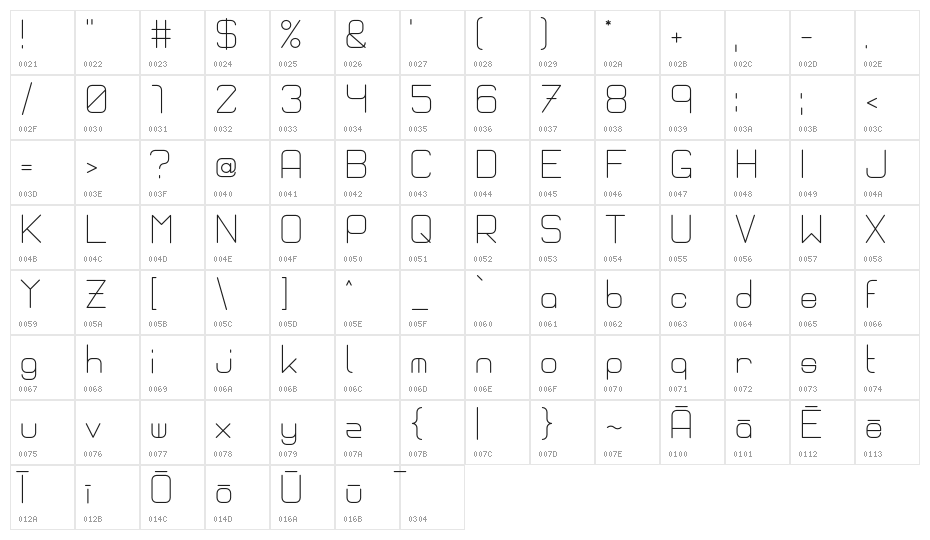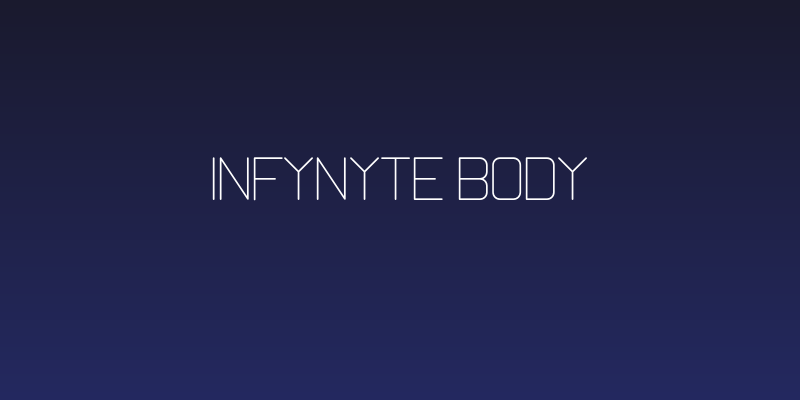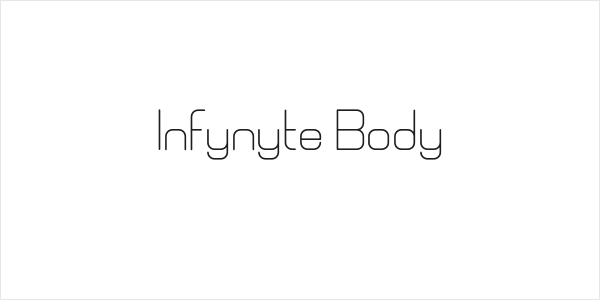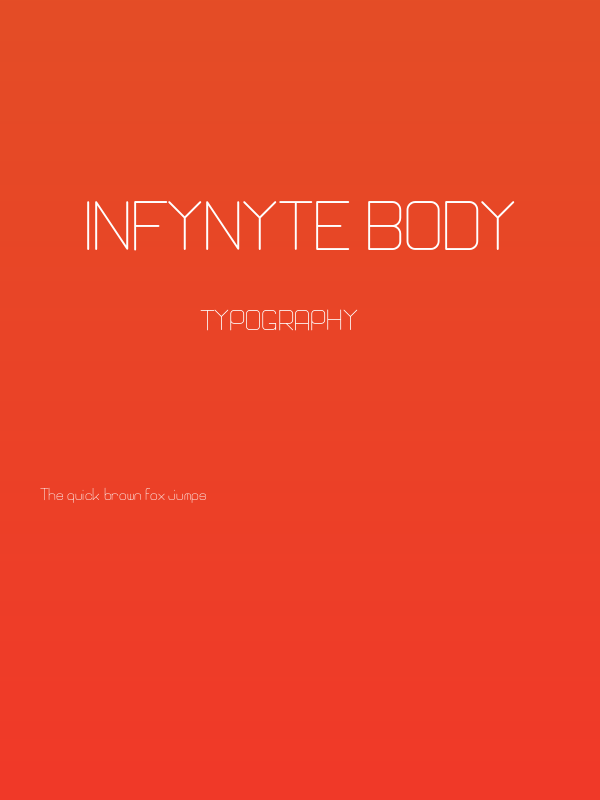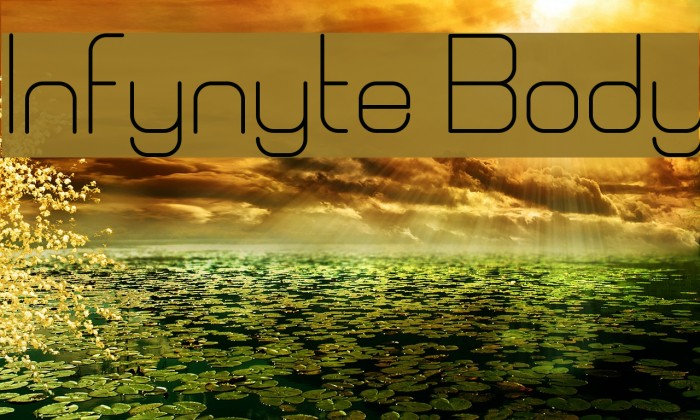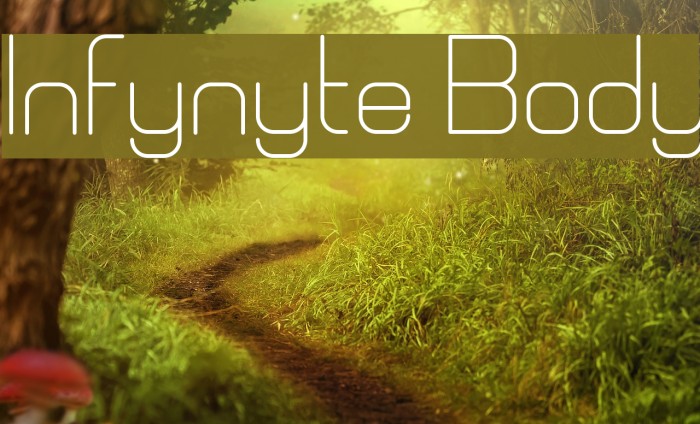
Infynyte Body Font
Infynyte Body Description
This font features a modern, geometric design with clean, straight lines and a minimalist aesthetic. The characters are constructed with uniform line weights, giving it a sleek and futuristic appearance. The uppercase and lowercase letters maintain a consistent style, with rounded corners that soften the overall look. The numerals and special characters follow the same design principles, ensuring a cohesive appearance across all glyphs. The font's simplicity and clarity make it highly legible, even at smaller sizes, while its unique style adds a touch of sophistication to any project.
| Use Case | Headlines, Logos, Tech branding |
| Proposed Projects | Ideal for tech branding, modern web design, and futuristic posters. |